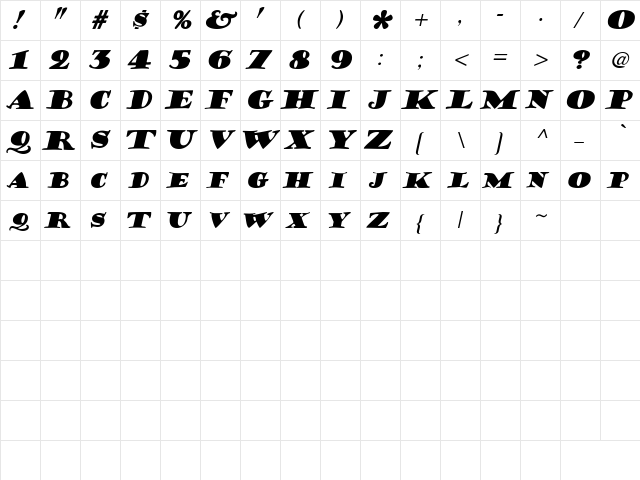
Hermann Bold Italic
Design Context for Hermann Typeface
Hermann is a composed and adaptable typeface that performs quietly and consistently across a wide range of design contexts. Its italic angle brings a sense of urgency and motion to the letterforms. Its bold stroke weight gives it real presence on the page.